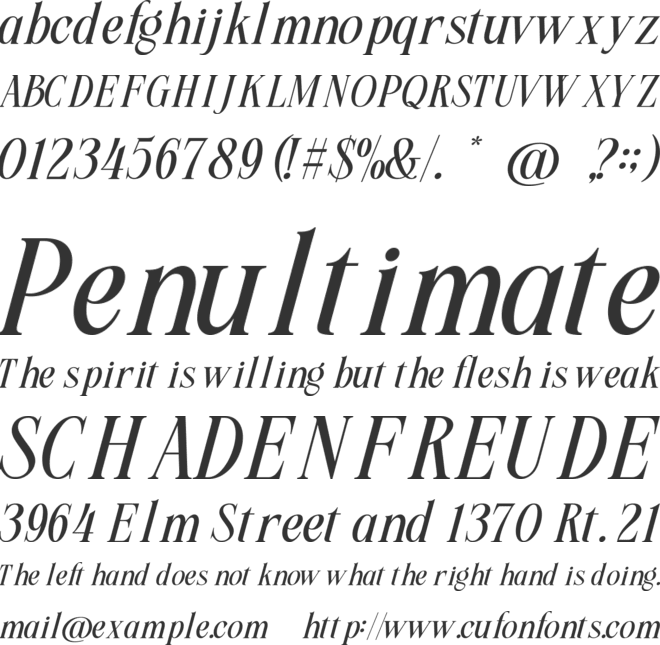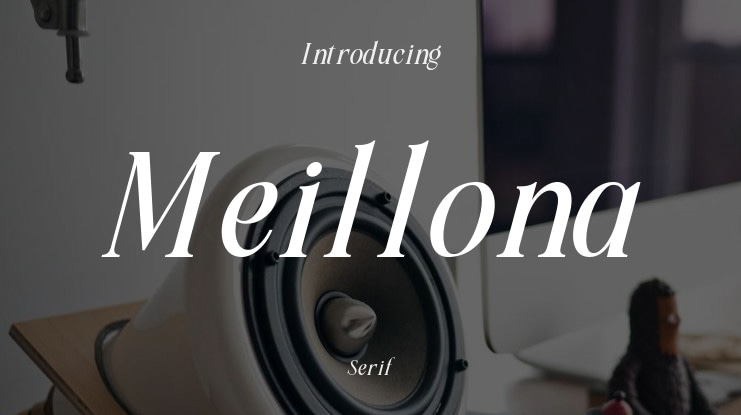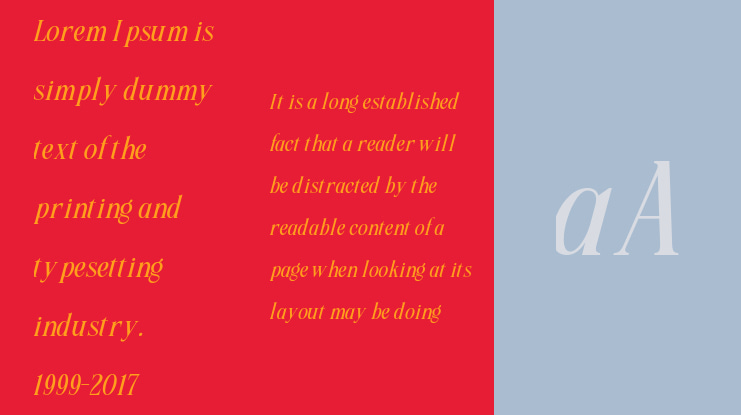
Ni Nyoman Puspa Dewi
Meillona - Elegant Nature Typeface
Introducing Meillona, an elegant and romantic slanted serif typeface inspired by the delicate beauty of nature.
Meillona is crafted with a sense of sophistication and organic charm. Its graceful, flowing letterforms and classic serif structure make it a timeless choice, while its unique nature-inspired elements set it apart. This typeface is designed to bring a touch of natural elegance and romance to your creative projects.
What makes Meillona truly special is its rich set of features, including beautifully illustrated swashes that incorporate flowers, leaves, and whimsical dragonflies. These decorative elements can be used to create stunning, bespoke typography that feels both luxurious and intimately connected to the natural world.